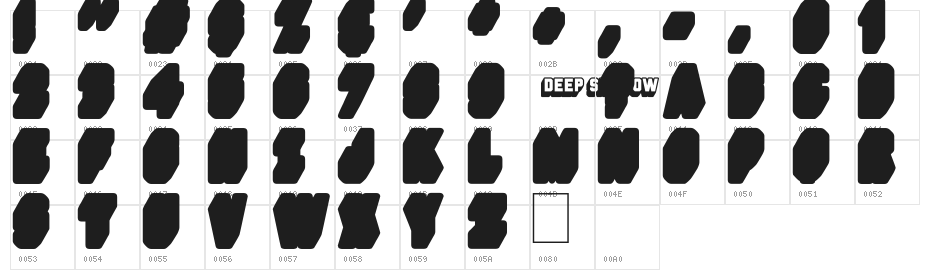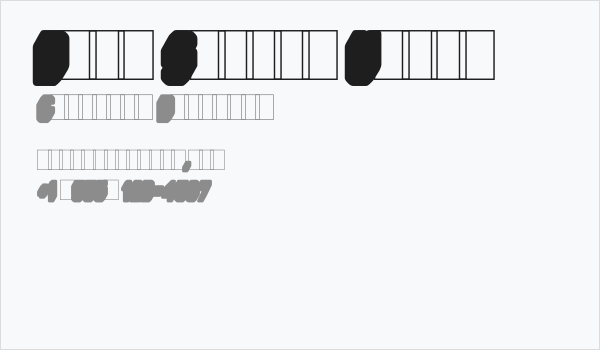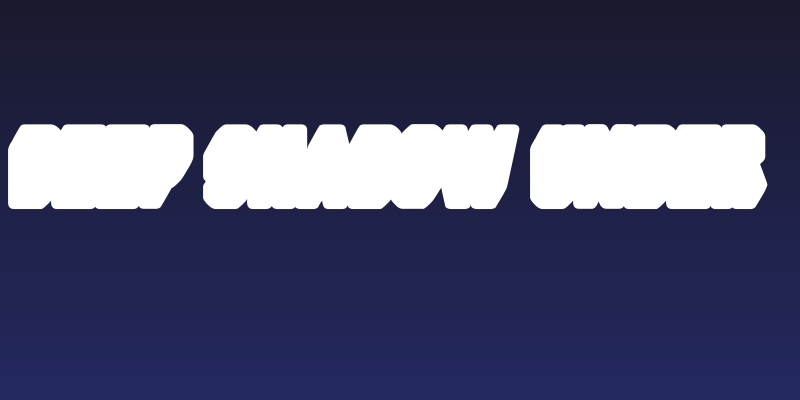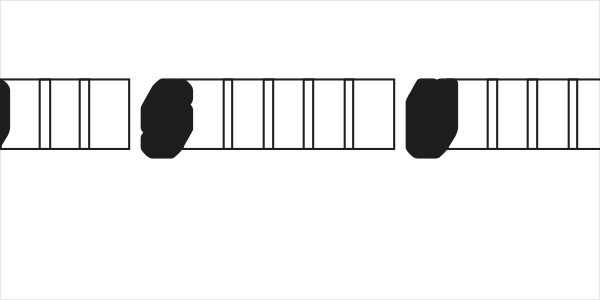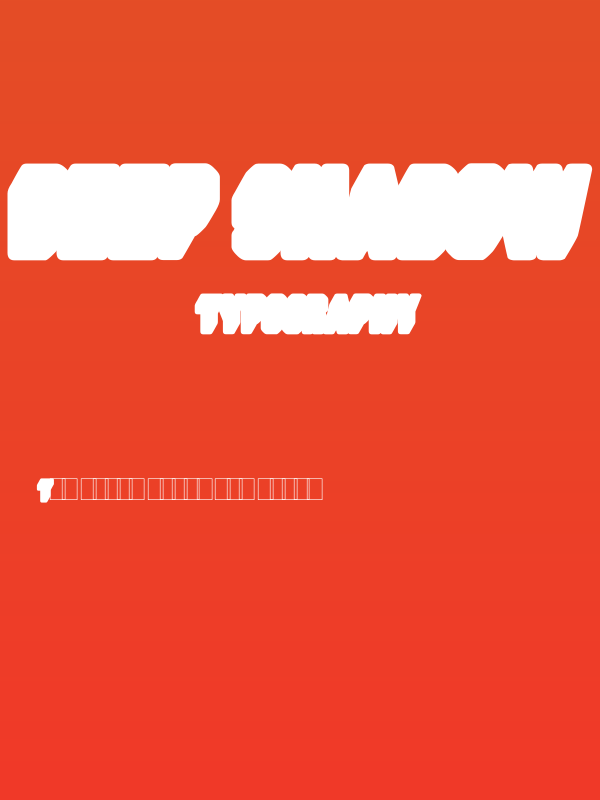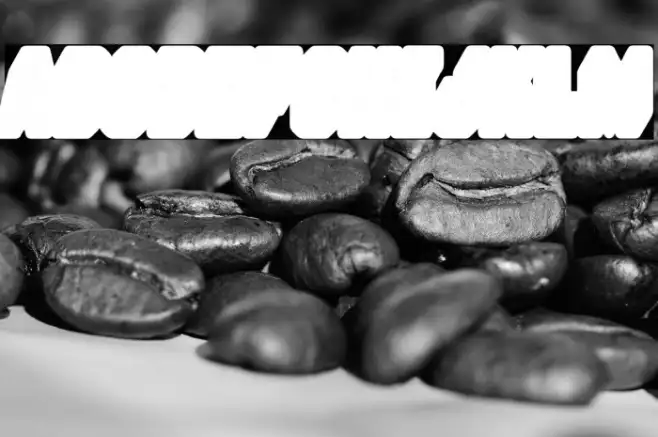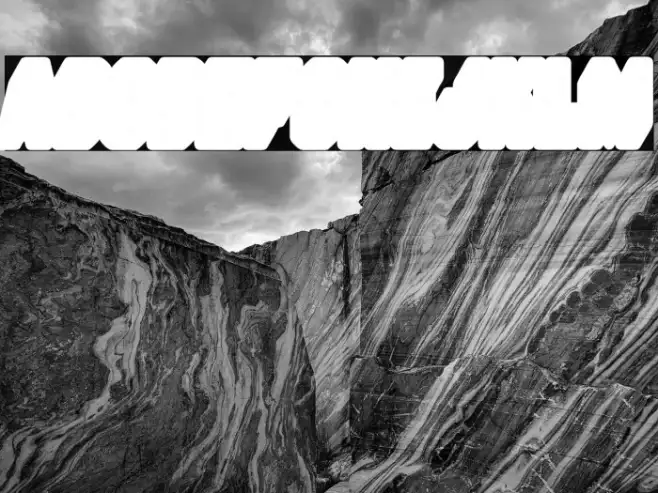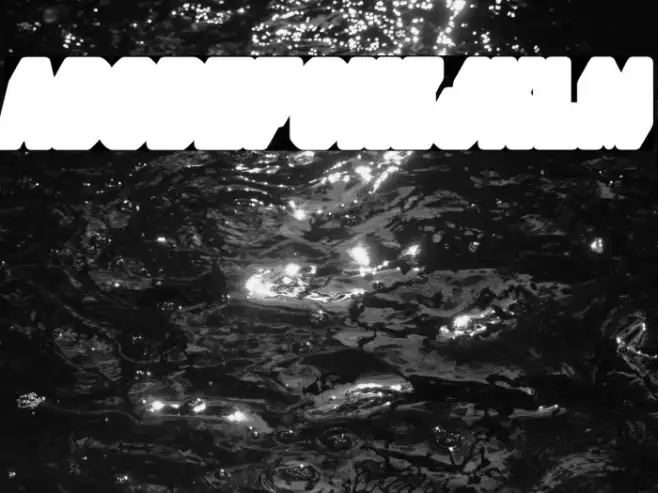
Deep Shadow Under Font
Deep Shadow Under Description
This bold and striking font features a deep shadow effect that gives each character a three-dimensional appearance. The letters are thick and blocky, with a strong presence that commands attention. The shadowing adds depth and a sense of movement, making it ideal for designs that require a dynamic and impactful look. The uppercase and lowercase letters maintain a consistent style, ensuring readability while adding a unique flair. The numbers and special characters are equally bold, integrating seamlessly with the alphabetic characters. This font's distinctive style makes it suitable for creative projects where a bold statement is needed.
| Proposed Projects | Ideal for posters, headlines, logos, and any design requiring a bold, eye-catching font. |